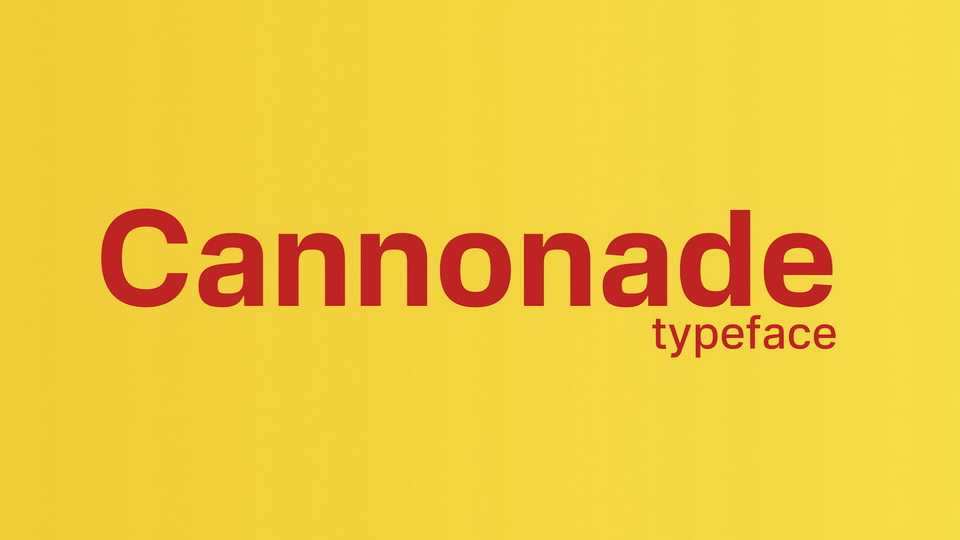
Download Cannonade font, a little bit strict but elegant and simple grotesque. Cannonade can be perfectly used in mobile apps, websites and magazines.
Designer: Camille Khubbetdinov